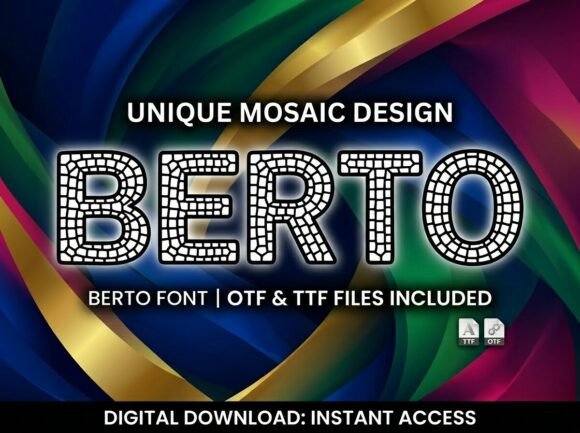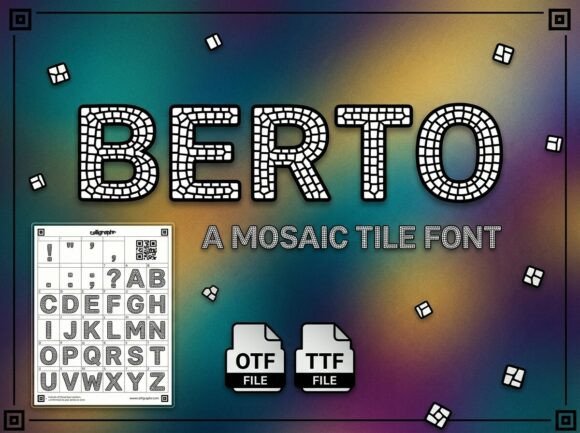
Introducing Berto Font: A Stunning Decorative Display Font
Are you tired of using the same old fonts for your designs? Do you want to add a touch of uniqueness and creativity to your projects? Look no further than Berto Font, a decorative display font that is sure to turn heads. In this article, we’ll take a closer look at what makes Berto Font special and how it can elevate your designs.
Berto Font is a stunning decorative display font designed to be the center of attention. With its unique artistic elements and strong visual personality, this font is perfect for creators who want to break away from the ordinary. Whether you’re working on a bold headline, artistic logo, or creative packaging, Berto Font is versatile enough to make a lasting impression while maintaining a professional and polished finish.
⚠️ IMPORTANT NOTE BEFORE PURCHASE: Berto Font is an ALL-CAPS (Uppercase Only) display typeface. This means that it does not include lowercase letters. It is specifically designed for high-impact headlines, logos, and decorative initials where every letter is a work of art.
Why Choose Berto Font?
So, why should you choose Berto Font for your next project? Here are just a few reasons:
- Unique and Creative: Berto Font is a one-of-a-kind font that will add a touch of creativity and uniqueness to your designs.
- Versatile: This font is perfect for a variety of design projects, from bold headlines and artistic logos to creative packaging.
- Professional and Polished: Despite its decorative nature, Berto Font maintains a professional and polished finish, making it perfect for clients who demand high-quality designs.
- Use it for Headlines: Berto Font is perfect for bold headlines and titles. Use it to grab attention and add visual interest to your designs.
- Experiment with Colors: Berto Font looks great in a variety of colors. Experiment with different colors and gradients to add depth and interest to your designs.
- Pair it with Other Fonts: Berto Font can be paired with other fonts to create a unique and visually appealing design. Try pairing it with a clean sans-serif font for a bold and modern look.
In conclusion, Berto Font is a stunning decorative display font that is sure to elevate your designs. With its unique artistic elements and strong visual personality, this font is perfect for creators who want to break away from the ordinary. Whether you’re working on a bold headline, artistic logo, or creative packaging, Berto Font is versatile enough to make a lasting impression while maintaining a professional and polished finish. So why wait? Purchase Berto Font today and start creating stunning designs that demand attention!